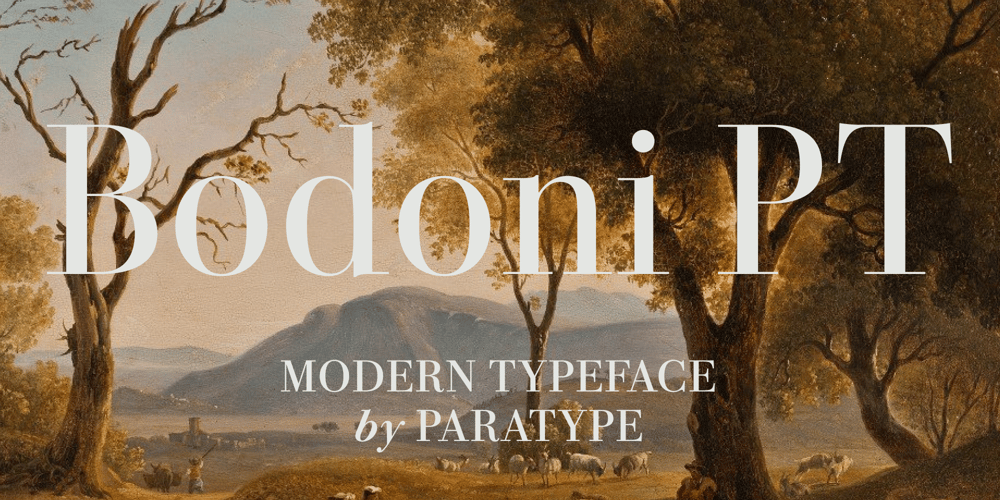
Bodoni PT
Bodoni PT font
Bodoni PT Font Family was designed by Dmitry Kirsanov, Alexandra Korolkova, Dmitry Goloub, Alexander Lubovenko, Nikolay Nedashkovsky and published by ParaType. Bodoni PT contains 33 styles and family package options. Bodoni PT, a contemporary serif with historical roots, is a flexible type system comprising 33 styles, offering options for both long-form text and extra-large headings. Bodoni PT is inspired by the proportions and characteristic features of Giambattista Bodoni’s typefaces, known as the “king of printers and printer of kings.”At the same time, Bodoni PT is fully adapted to modern needs. It performs well on both screen and in print, appears natural in body text, and its design avoids looking archaic. The typeface offers weights from Regular to Extrabold, with a fully realized gradation of optical sizes. Text styles are suited for small sizes, Subhead styles work best for medium sizes, and Display styles are ideal for large and extra-large applications.In total, the typeface includes 15 upright styles and 15 corresponding italics, along with two variable fonts and a special ornamental style. Bodoni PT features an extended character set, with each style containing over 1300+ glyphs. All styles come with a complete set of typographic OpenType features, including Small Caps, Proportional and Tabular Numerals, Old-style Figures, Indices, and Arrows. All styles support European languages using both Latin and Cyrillic scripts.Primary typeface characteristics are as follows: • 3 optical sizes: Display, Subhead, Text • 33 styles, each with 1300+ glyphs • 20+ OpenType features, including Small Capitals • Extended Latin and Cyrillic supportIf you need font files in different formats or would like to try out this font, just reach out to us at info@paratype.net, and we’ll be happy to assist.